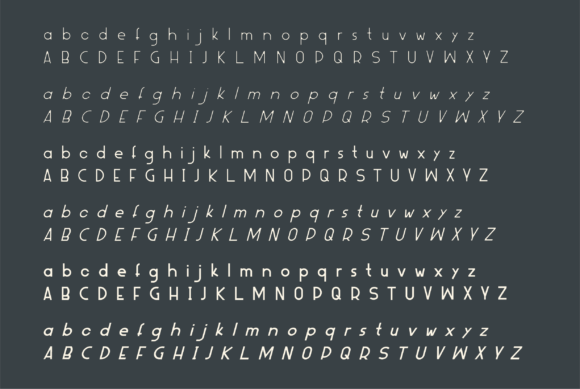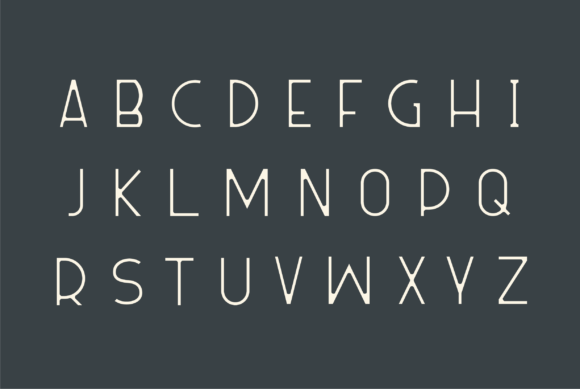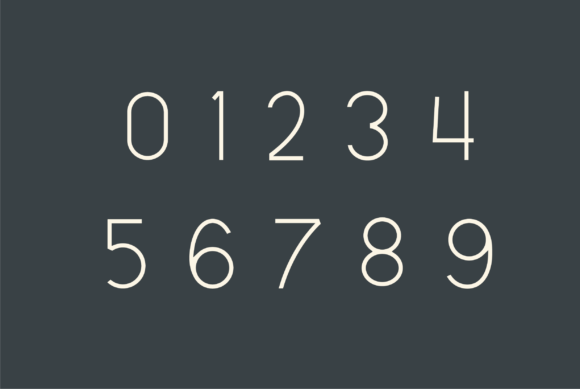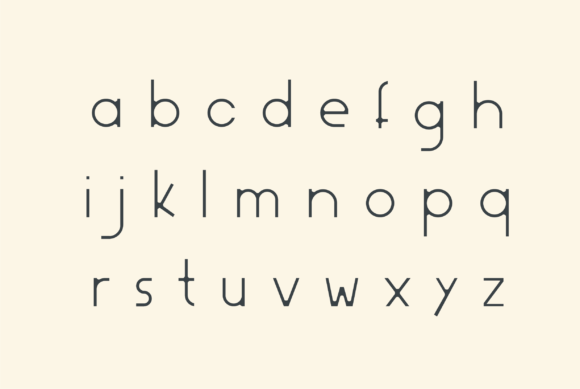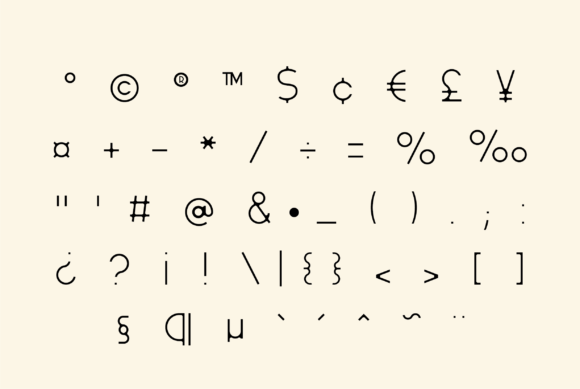
Introduction to Olinad Font
Olinad is a fancy and contemporary sans serif font.
It will complement any design need perfectly with its perfectly balanced mix of the smooth and sharp .
Key Features of Olinad Font
Why Choose Olinad Font?